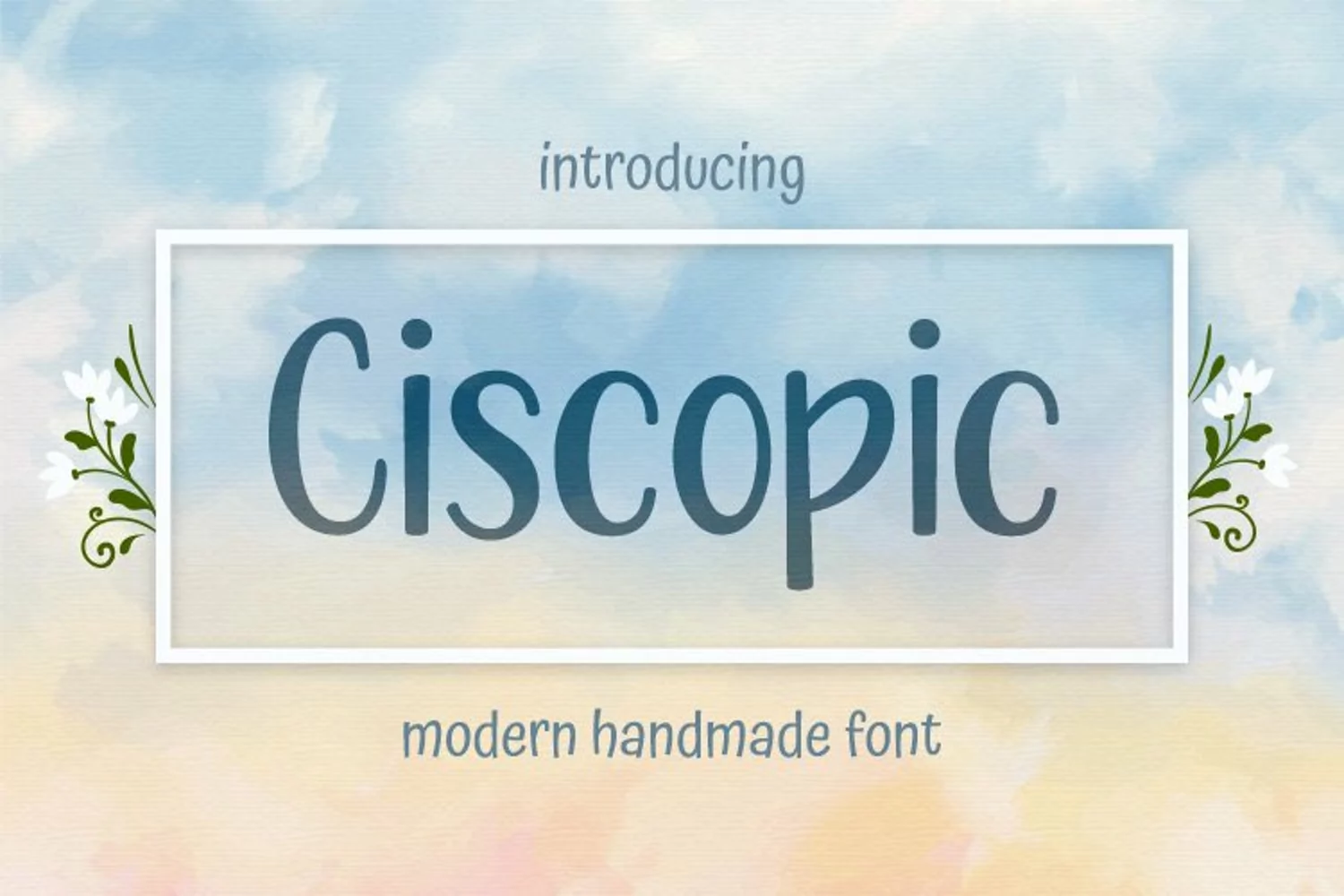
Ciscopic is a fun handwritten font. With a touch of modern characteristics, this cheery font is sure to be a hit with all your designs and projects. Great for apparel, books, posters, children's items, and much more!